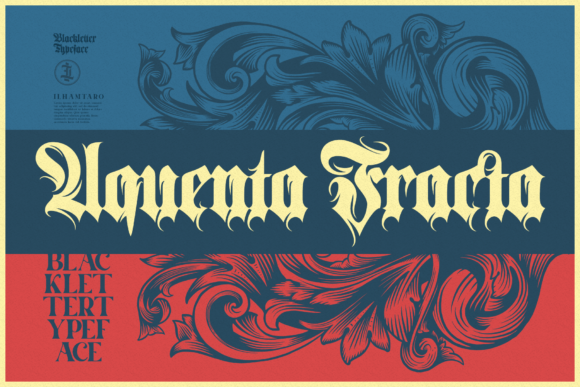
The Design Moment That Stole My Heart: Discovering Aquenta Fracta Font
I still remember the design moment that led me to fall in love with the Aquenta Fracta font. I was working on a branding project for a luxury craft beer company, and I needed a font that would convey confidence, authenticity, and a touch of edginess. As I scrolled through my font library, I stumbled upon Aquenta Fracta, and it was like a match made in heaven. The bold, blackletter design seemed to scream “craft beer” – and I knew I had found the perfect fit.
So, what makes Aquenta Fracta so special? Here are a few things that I absolutely love about this font:
- ✨ Confidence-boosting design: Aquenta Fracta exudes confidence and assertiveness, making it perfect for headlines, titles, and branding.
- ✅ Authenticity guaranteed: The font’s unique blackletter design gives off a sense of authenticity and individuality.
- 🎨 Versatility: Aquenta Fracta can be used for a wide range of projects, from cards and labels to branding and advertising.
Of course, no font is perfect, and Aquenta Fracta has a few quirks to keep in mind:
- 🤔 Legibility at small sizes: While Aquenta Fracta looks stunning at larger sizes, it can become a bit tricky to read at smaller sizes (below 10pt). Be sure to test it out before committing to a specific size.
- ⚠️ Limited use in body text: Due to its bold design, Aquenta Fracta is best suited for headlines and titles rather than body text.
- Experiment with OpenType features like glyphs and stylistic alternates to add some extra flair to your design.
- Take advantage of OpenType features like ligatures and stylistic sets to add some extra personality to your design.
If you’re looking for similar fonts or alternatives to Aquenta Fracta, here are a few options:
- Blenda: A bold, modern sans-serif font with a similar edgy feel to Aquenta Fracta. Use it for: bold headlines and branding.
- Rusticana: A rustic, distressed font with a similar blackletter vibe. Use it for: crafty, DIY projects and labels.
- Oswald: A classic, bold serif font with a similar sense of confidence. Use it for: headlines, titles, and editorial design.
- Materik: A modern, geometric font with a similar sense of edginess. Use it for: bold branding and advertising.
The Story Behind Aquenta Fracta
According to the font’s creators, Aquenta Fracta was inspired by traditional blackletter designs with a modern twist. The goal was to create a font that would exude confidence, authenticity, and charm – and I think they’ve succeeded!
Q: What type of projects is Aquenta Fracta best suited for?
A: Aquenta Fracta is perfect for a wide range of projects, including branding, labels, cards, and advertising.
Q: Can I use Aquenta Fracta for body text?
A: While Aquenta Fracta can be used for body text, it’s best suited for headlines and titles due to its bold design.
Q: Does Aquenta Fracta support OpenType features?
A: Yes, Aquenta Fracta supports OpenType features like glyphs, stylistic alternates, and ligatures.